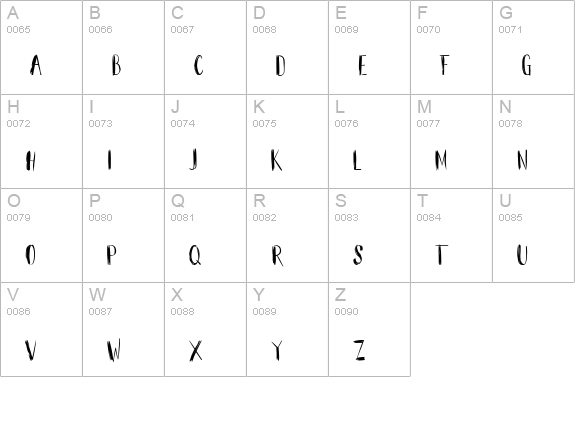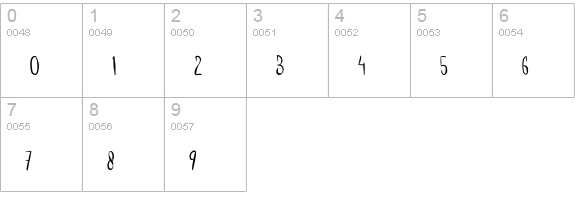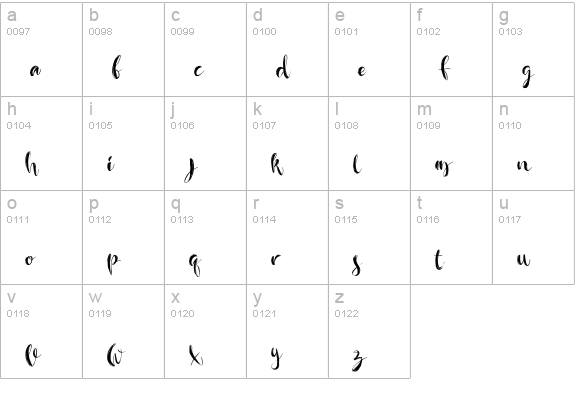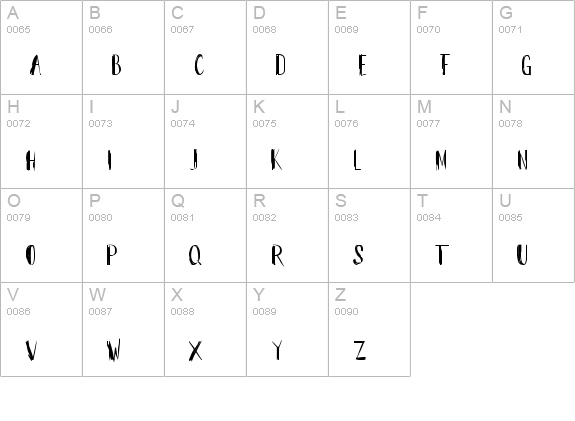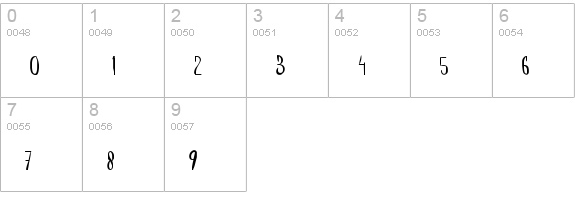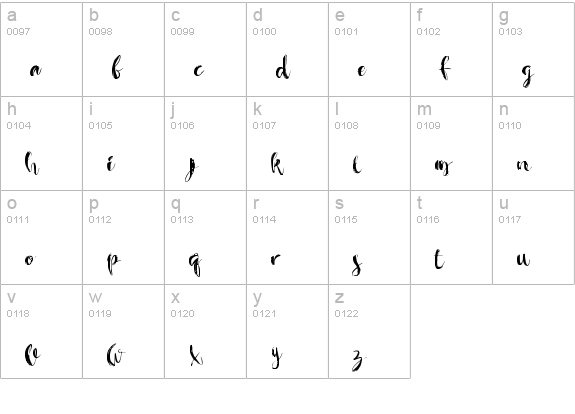
Layla Brush NEW Update Font Details
Introducing the newly updated Layla Brush font, a stunning typeface that exudes elegance and sophistication. With its unique brush strokes and modern design, Layla Brush is the perfect choice for adding a touch of creativity to your projects. This versatile font is now available for free download exclusively at FontsMarket.com, making it accessible to designers and creatives alike. Elevate your designs with Layla Brush and experience the seamless blend of style and functionality. Don't miss out on this opportunity to enhance your projects with this exquisite font – download Layla Brush for free today!